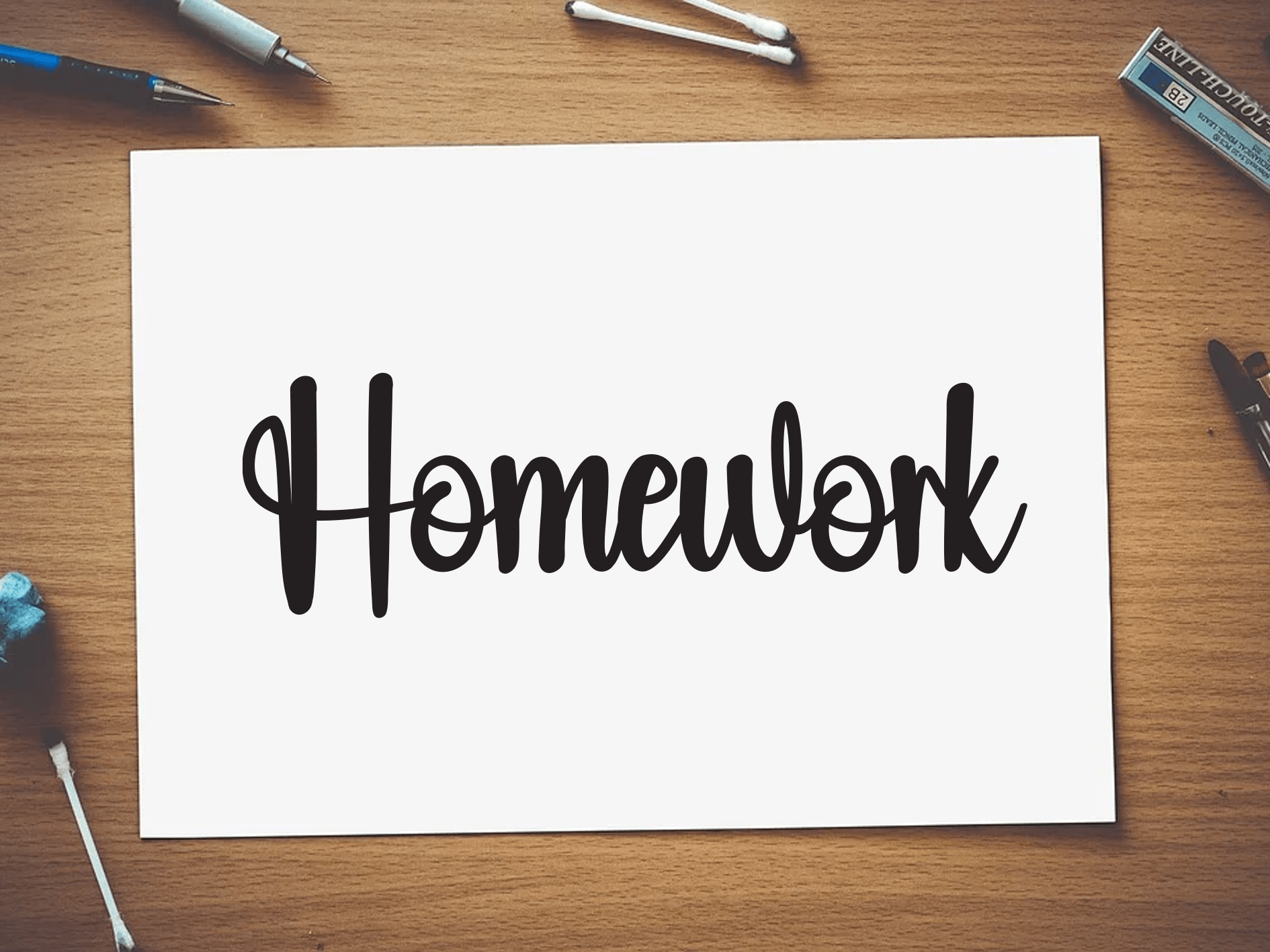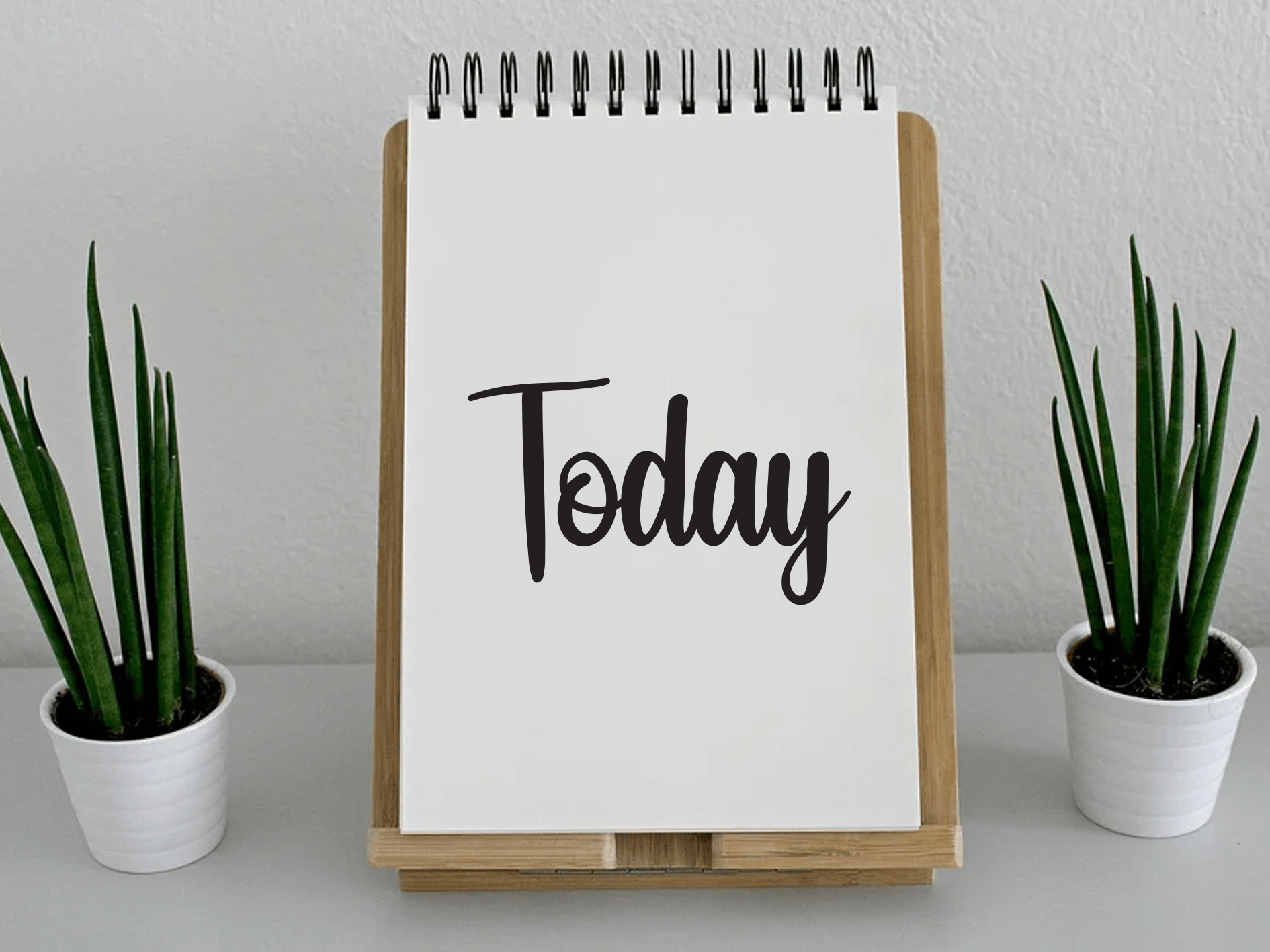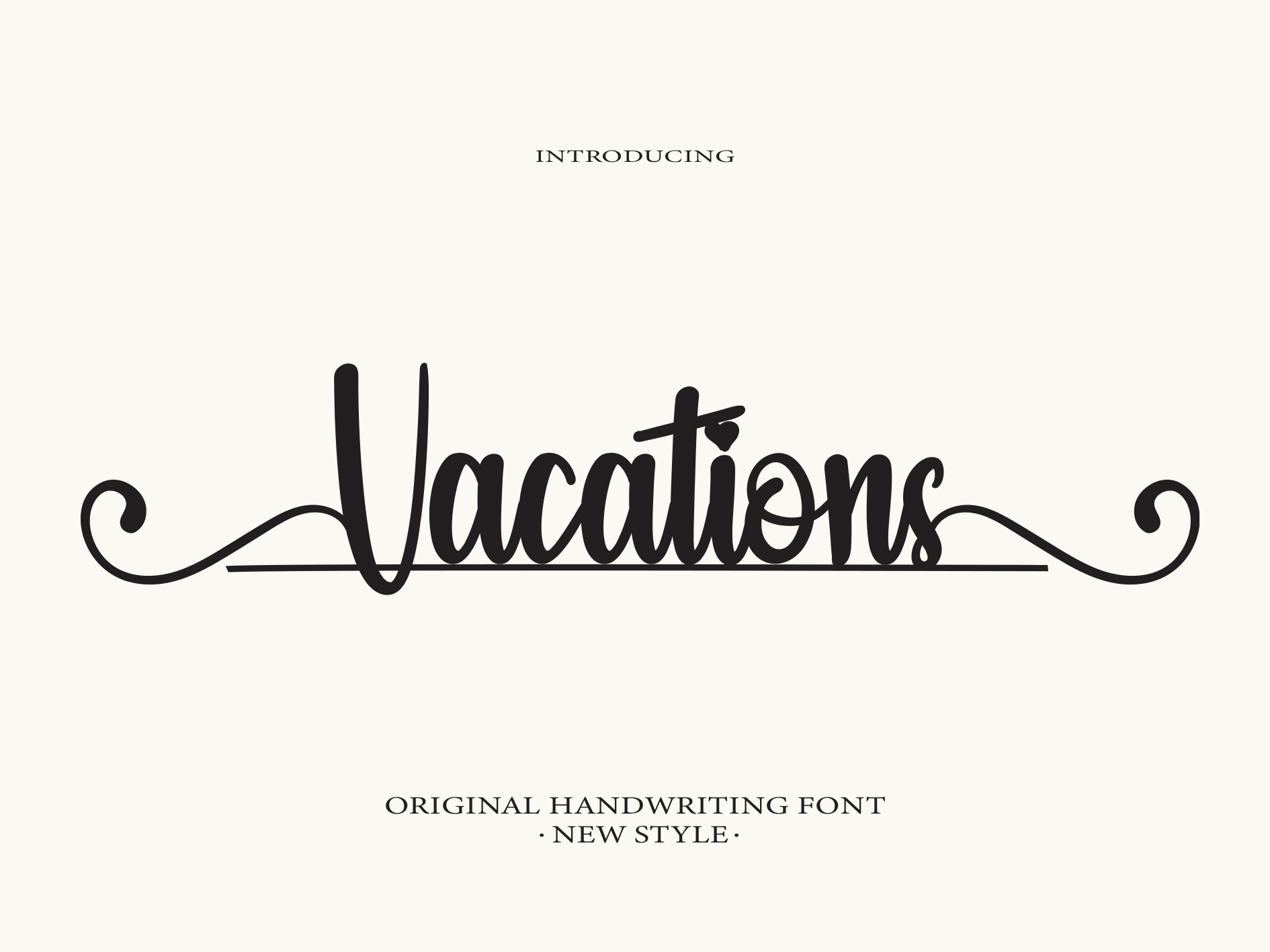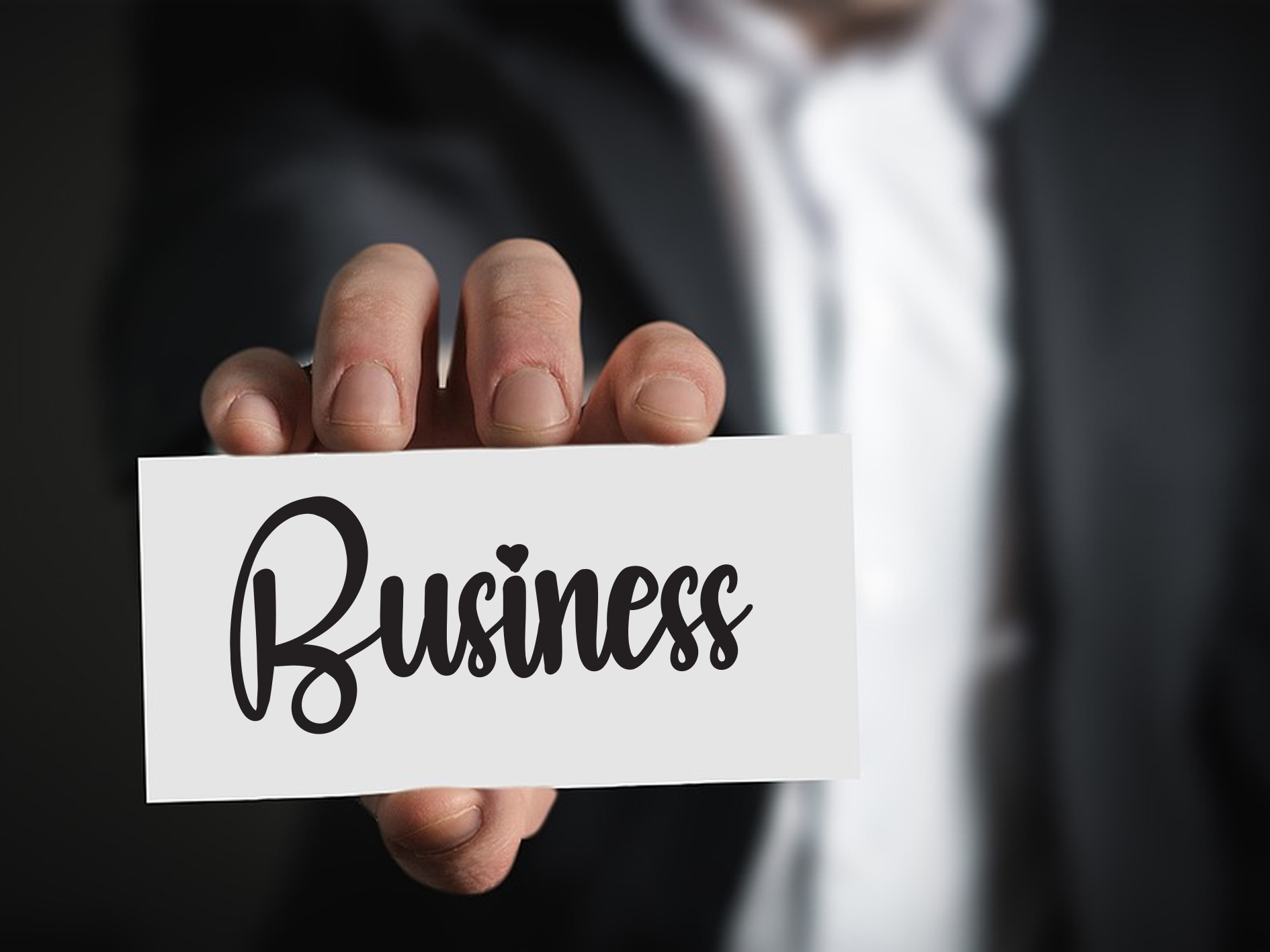
Vacation Script Font
It’s a sweet handwritten font that is made with great care in order to produce the expected outcomes. This font can be used for writing various kinds of products according to their respective needs.
This is a beautiful and unique handwritten font, with grooves crafted to produce beautiful lettering for use in a wide variety of products as desired. This is the product link; https://www.creativefabrica.com/product/vacation-4/